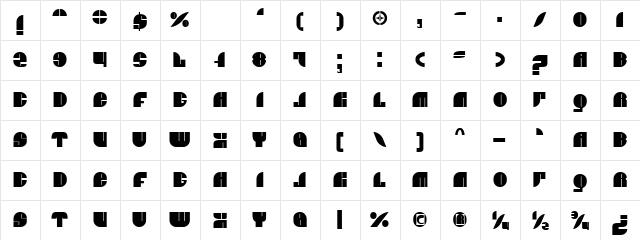
BN JNCO Regular Font Preview
BN JNCO Regular
BN JNCO Regular Font Details
Design Context for BN JNCO Typeface
BN JNCO is a composed and adaptable typeface that performs quietly and consistently across a wide range of design contexts.